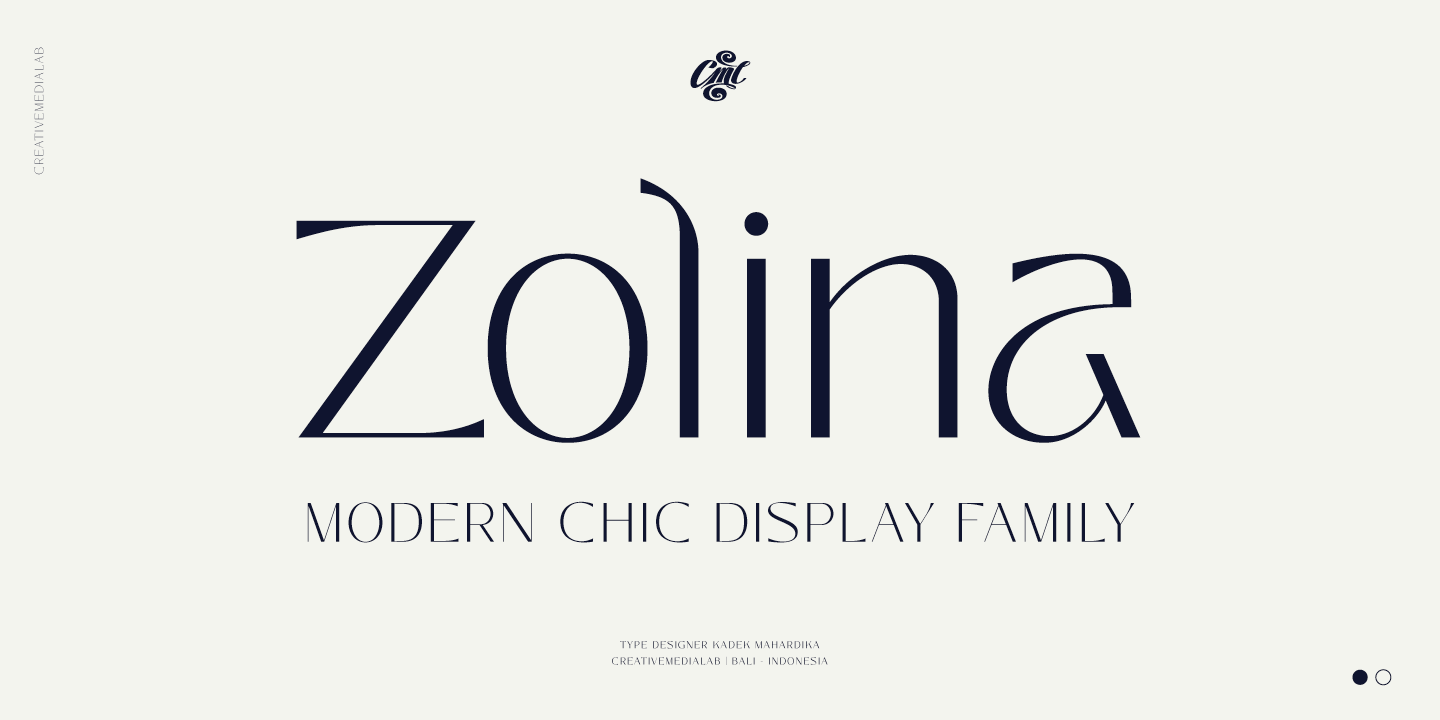
Zolina Font is perfect for women's fashion branding, elegant beauty campaigns, luxury cosmetics packaging, sophisticated lifestyle magazines, premium jewelry advertising, upscale boutique communications, refined wellness branding, graceful wedding materials, feminine empowerment content, and chic editorial design projects. This graceful typeface creates sophisticated feminine atmosphere in both luxury print and contemporary digital applications.
What makes Zolina Font exciting is its exquisite embodiment of modern femininity with refined elegance and contemporary sophistication. The font features graceful letterforms with delicate curves and sophisticated character details that evoke confidence, beauty, and empowered femininity. Its elegant design establishes an atmosphere of luxurious refinement and contemporary grace that resonates with sophisticated women and premium lifestyle brands.
Zolina Font family includes elegant variations: Thin, Light, Regular, Medium, Bold, and Script versions, each with feminine alternates and sophisticated character sets. Each variant maintains the font's graceful personality while providing designers with refined options for creating elegant typography systems and luxury communication materials.
This exceptional feminine typeface brings authentic elegance to projects requiring sophisticated presentation. Whether you're designing luxury fashion brands, beauty marketing, or premium lifestyle content, Zolina Font Free Download delivers outstanding grace and contemporary sophistication. The font's refined proportions and elegant details ensure memorable feminine connection across various luxury applications.
Fashion designers and beauty brands recognize how Zolina Font perfectly captures the essence of modern femininity and luxury elegance. Its sophisticated foundation combined with graceful styling makes it essential for feminine and luxury design projects. Download today and elegance your designs with this exceptionally graceful feminine typography.